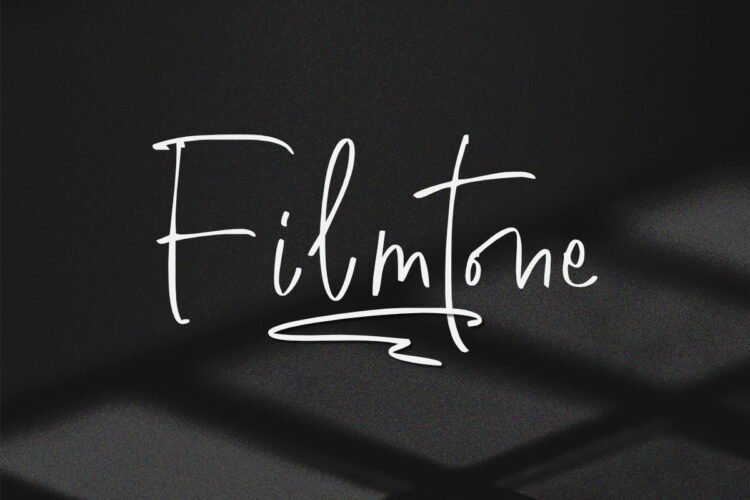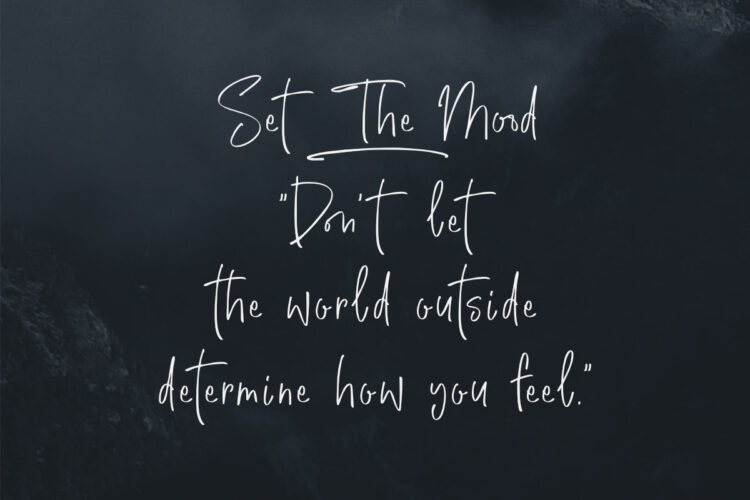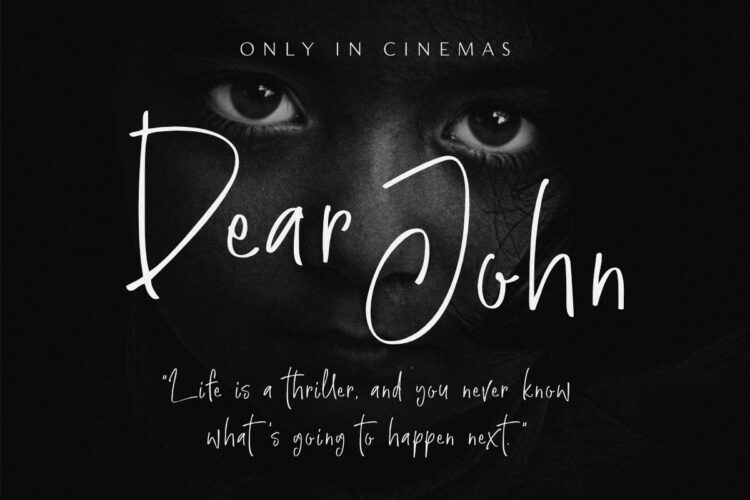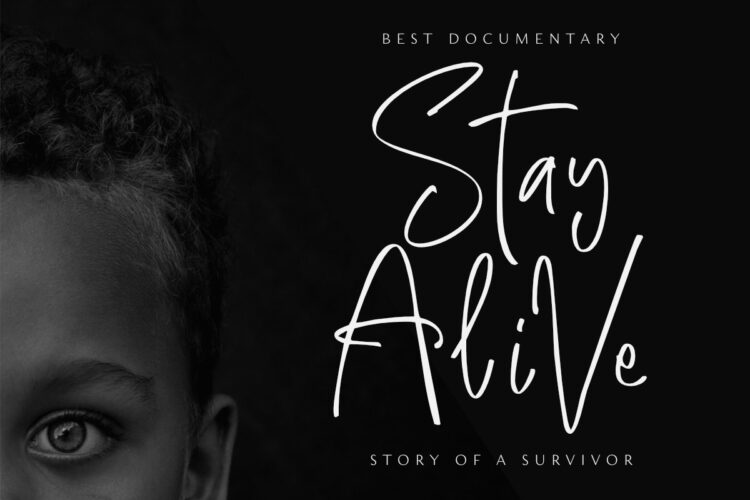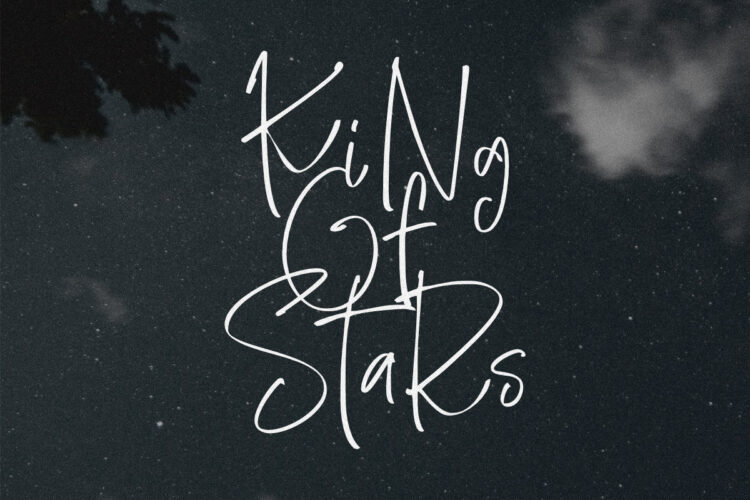
Create beautiful work with Filmtone, the perfect typeface for adding a touch of personality to your designs. With its casual style, Filmtone is perfect for headlines, invitations, posters, and more.
- Ligatures
This font is supporting more than 66 languages, which include: Afrikaans Albanian Catalan Danish Dutch English Estonian Finnish French German Italian Norwegian Portuguese Spanish Swedish Zulu, and more.